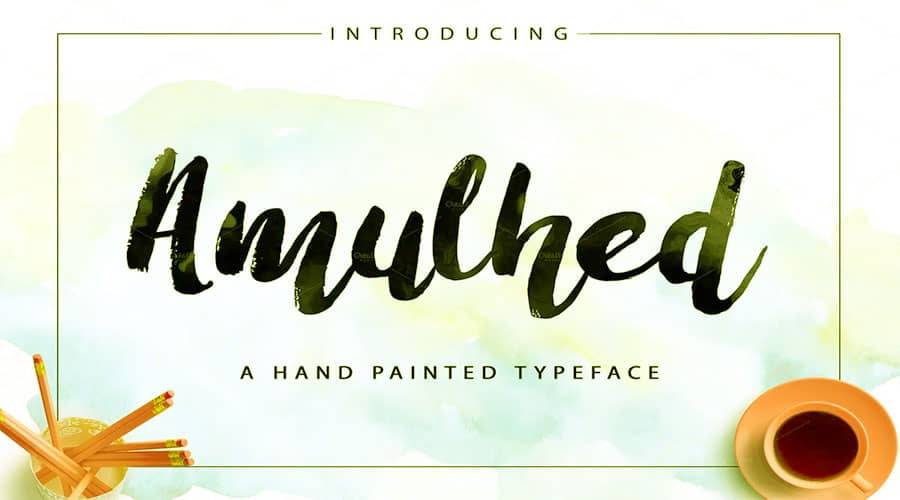
Amulhed Brush Font Free
Amulhed Brush Font Free is the most recent Script and brush font. Barland designed and released the Standard Font on August 15, 2016.
Amulhed Brush Font Free is a top-quality font that can be purchased on creative market. But it was fantastic, and it is now available for free download. Amulhed Brush is a polished hand marker with a contemporary way that was related to the implementation of your next design project. Adobe Illustrator, Adobe Photoshop, Adobe InDesign, Corel Draw X version, Microsoft Word, and other programs are also supported in the program. The Font is only available in ZIP font.
| Style | Script, Brush |
| Designer | Barland |